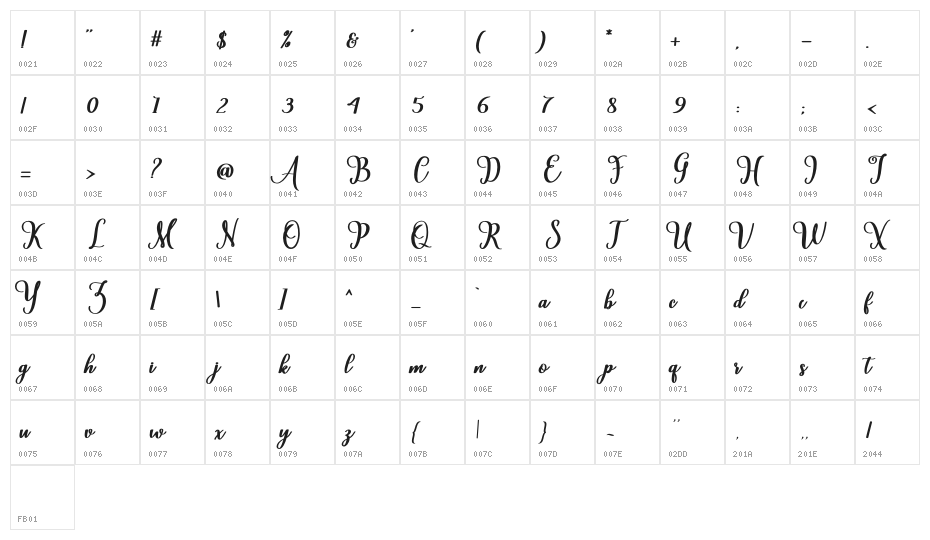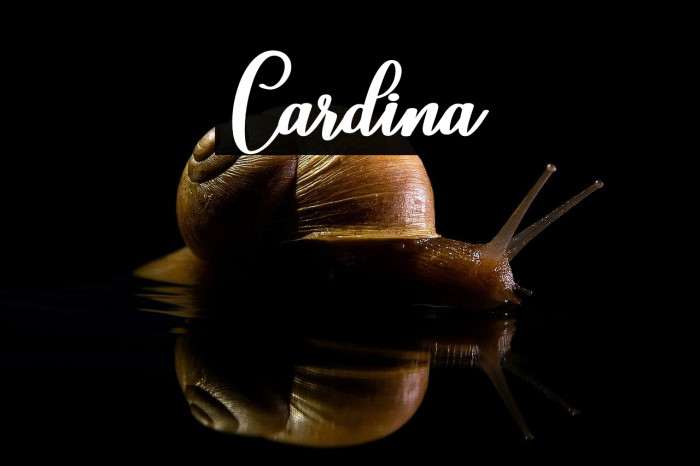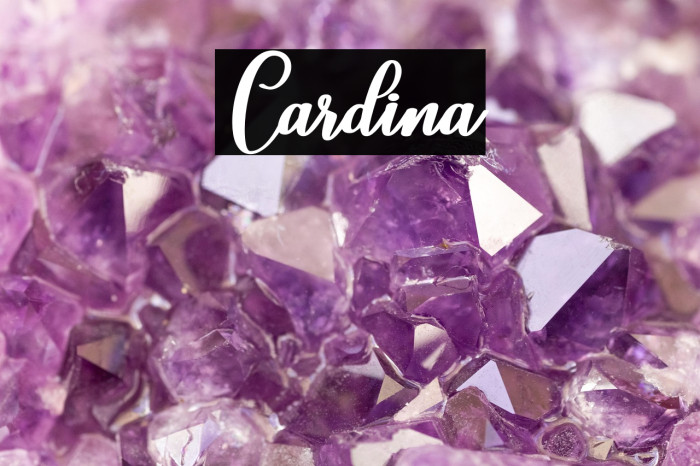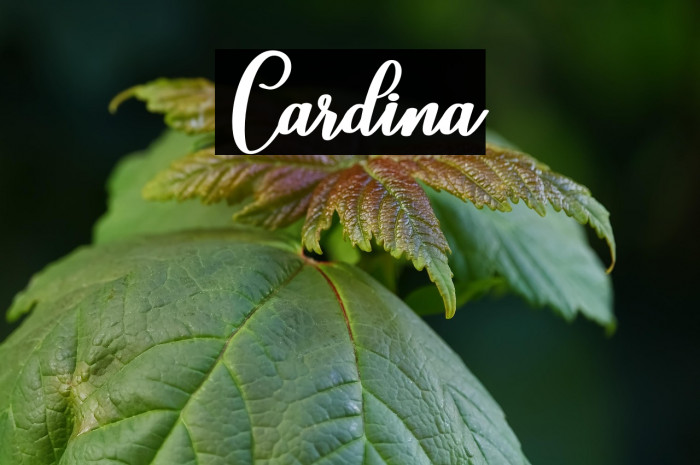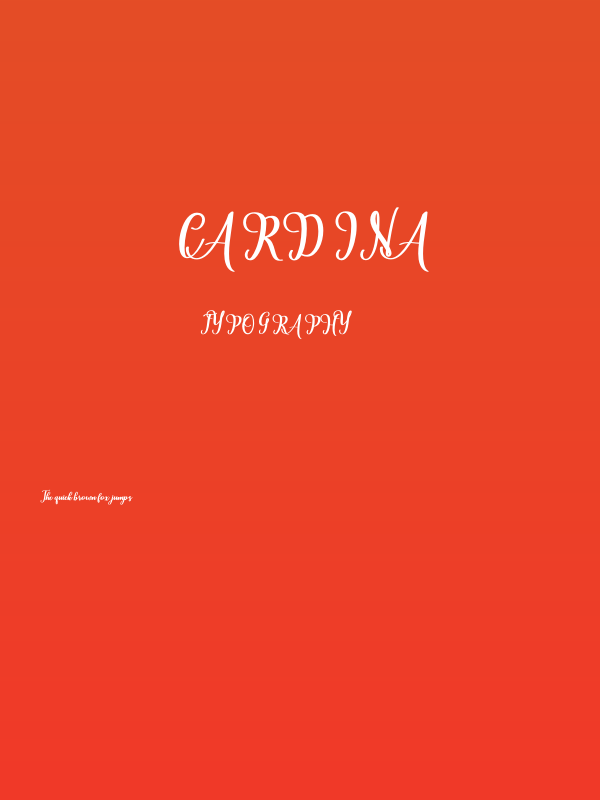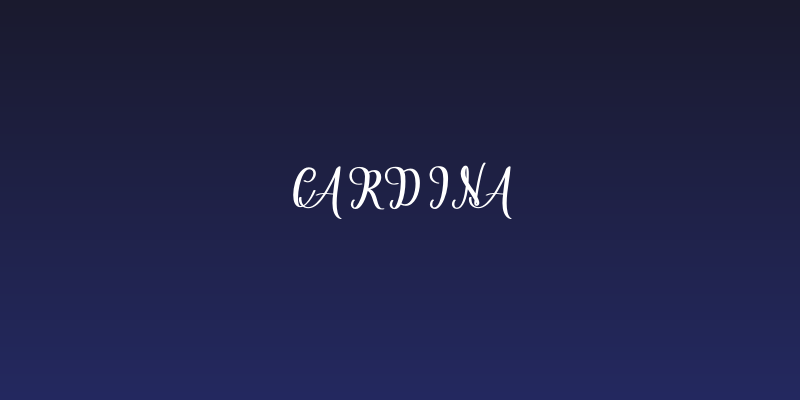
Cardina Font
Cardina Description
This font features an elegant and flowing script style, characterized by its smooth, cursive letters that convey a sense of sophistication and grace. The uppercase letters are particularly ornate, with sweeping curves and flourishes that add a decorative touch. The lowercase letters maintain a consistent style, with rounded forms and a slight slant that enhances readability. The numerals are designed to match the overall aesthetic, with a balanced mix of curves and straight lines. Special characters are thoughtfully integrated, maintaining the font's cohesive look. This font is ideal for projects that require a touch of elegance and formality.
| Overall Style | Elegant, Decorative |
| Use Case | Headlines, Invitations, Logos |
| Proposed Projects | Wedding invitations, luxury branding, elegant logos, formal event programs, and decorative headings. |